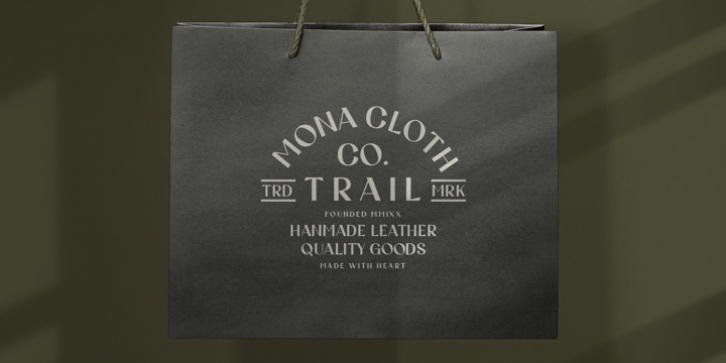
We want to convey certain information, change a reader's opinion or make them feel something; Guttie Display Typeface helps you to do all this easily.
- Fonts can be read from a much larger distance than regular fonts
- Elegant letters give the impression of luxury
- Smooth curves for elegant typography